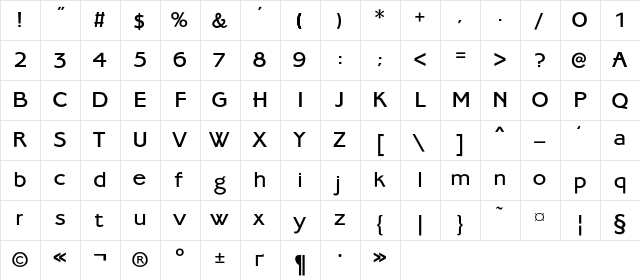
AmbassadoreC Regular Font Preview
AmbassadoreC Regular
AmbassadoreC Regular Font Details
Design Context for AmbassadoreC Typeface
AmbassadoreC offers clean, dependable letterforms without strong stylistic allegiance, making it a practical choice for designers who need flexibility.